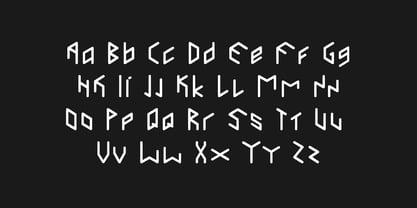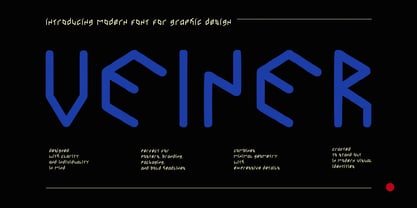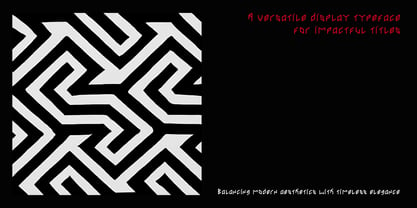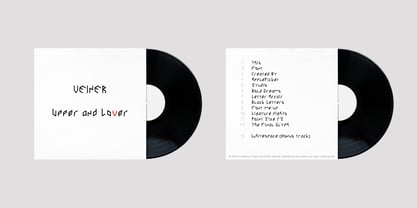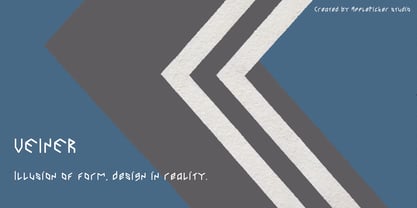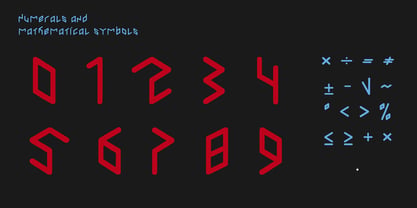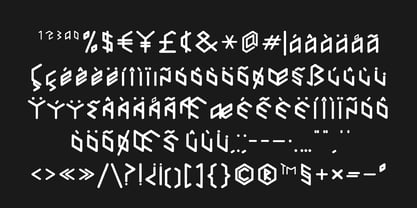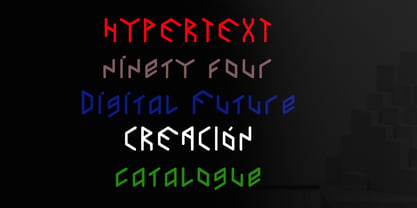
Veiner
The Veiner Font Family was designed by Vadim Veiner and published by ApplePicker. Veiner contains 1 styles. More about this family
Veiner is a modern decorative typeface designed for expressive headlines, posters, branding, and digital design. With its sharp geometry, distinctive details, and bold presence, Veiner adds a cinematic edge to any project. The strong contrast and precise construction make it stand out in both print and digital applications. Perfect for: - Movie titles and posters - Album covers and editorial design - Fashion and lifestyle branding - Digital art and web graphics Features: - Full uppercase and lowercase Latin alphabet - Numbers, punctuation, and essential symbols - Carefully crafted kerning and spacing for professional use Whether used in bold statements or subtle accents, Veiner brings personality and impact to your creative work.